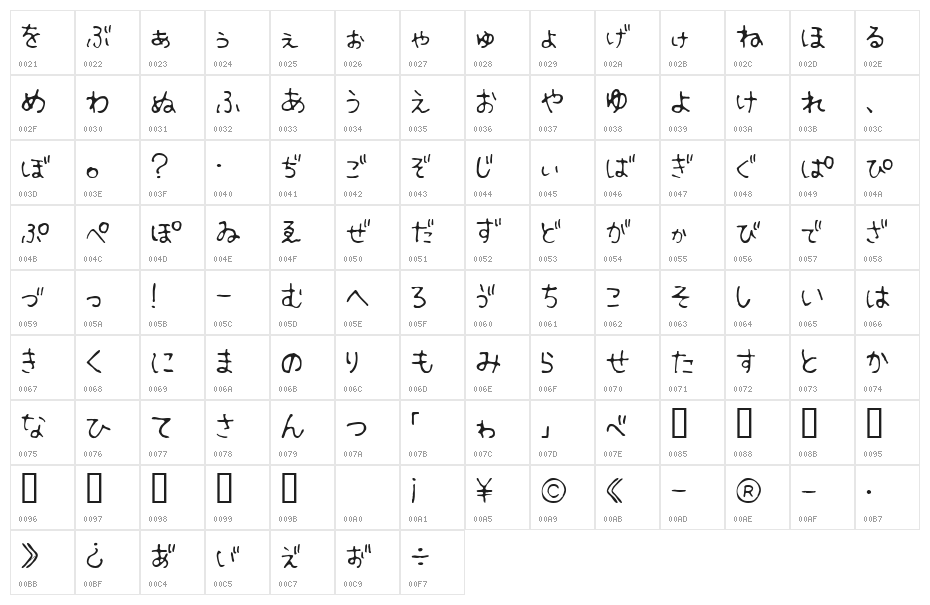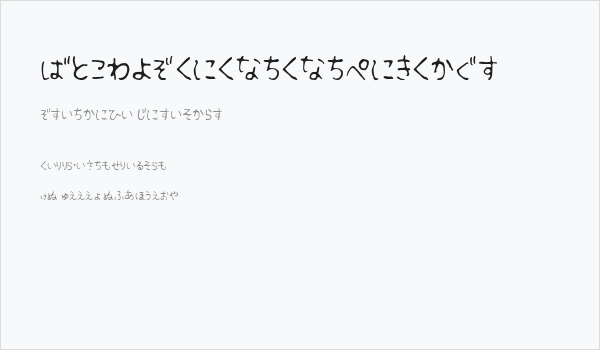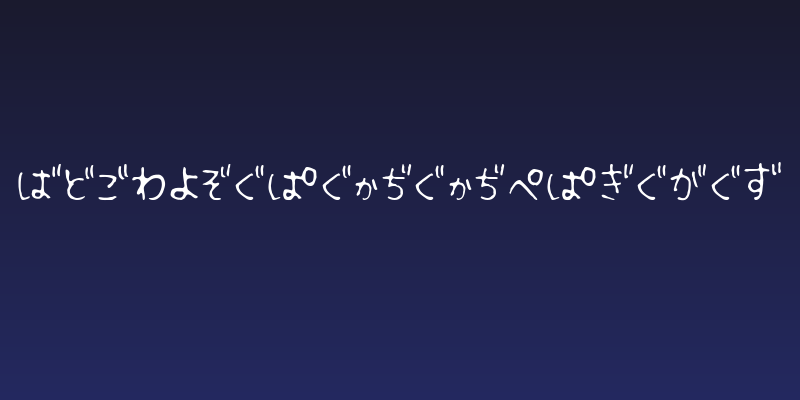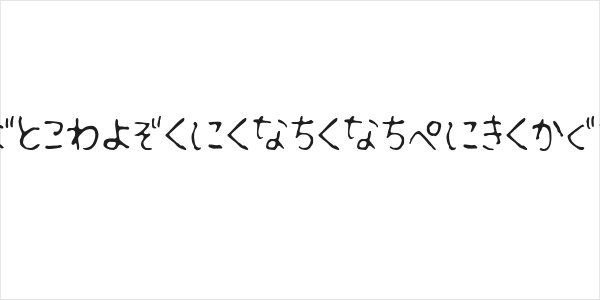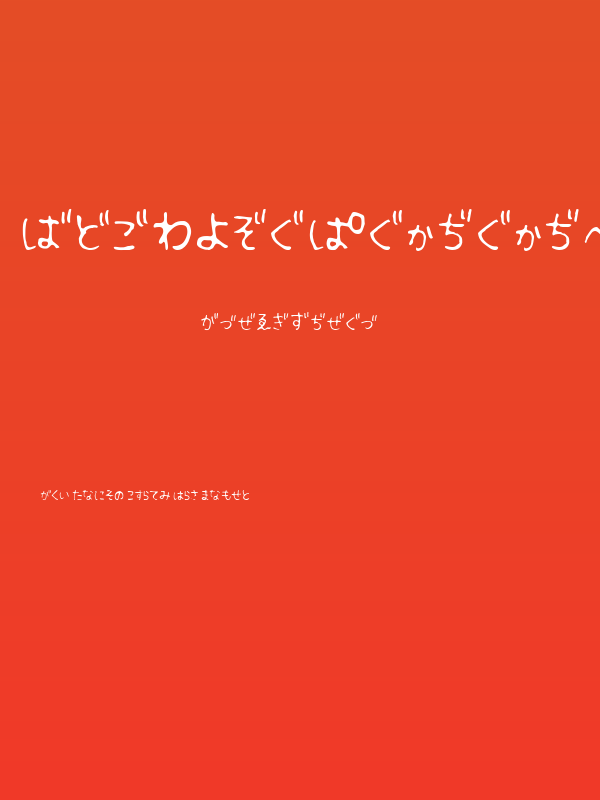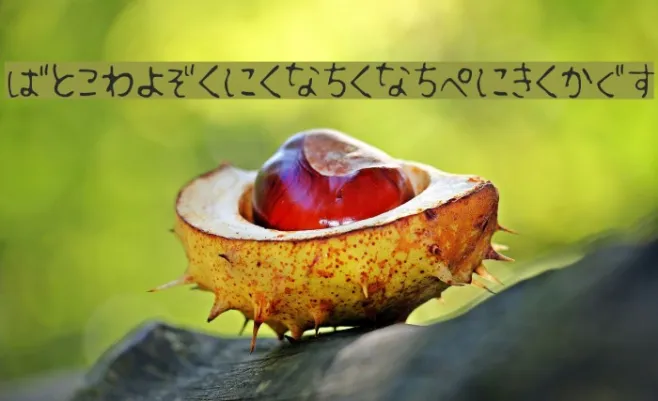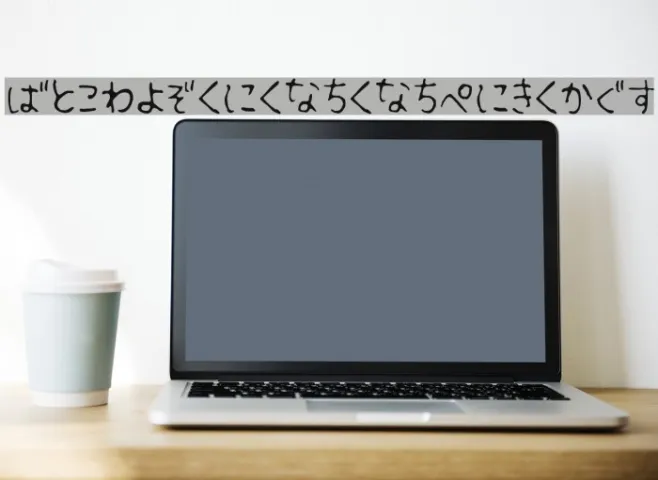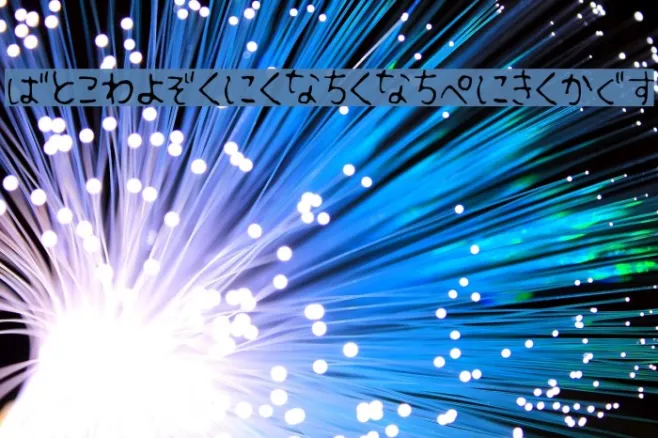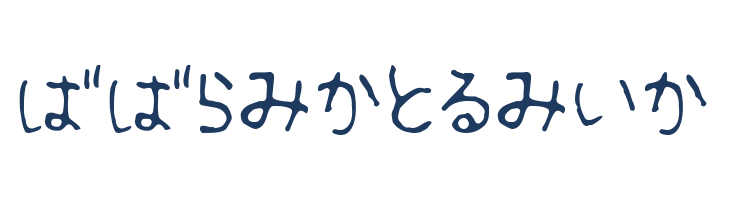
Fsb09ChihuahuaLightHr Font
Fsb09ChihuahuaLightHr Description
This font presents a playful and informal style, characterized by its handwritten appearance. The strokes are uneven, giving it a casual and friendly feel. The characters are slightly rounded with a natural flow, reminiscent of a personal note or a casual letter. The font maintains a consistent baseline, but the heights of the characters vary, adding to its whimsical charm. This style is particularly engaging for projects that aim to convey warmth and approachability. The overall look is both unique and inviting, making it suitable for creative and informal applications.
| Use Case | Headlines, Informal text, Creative projects |
| Proposed Projects | Ideal for children's books, greeting cards, personal blogs, and informal branding. |